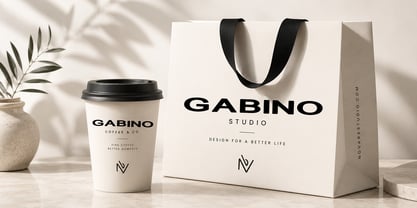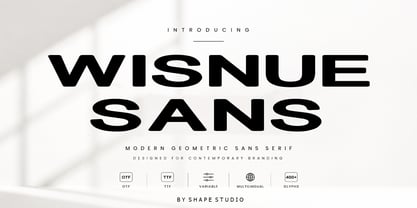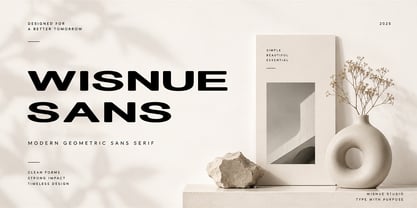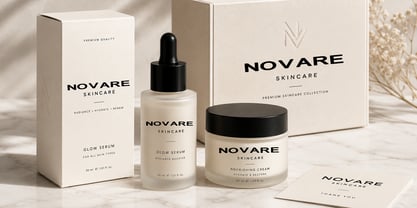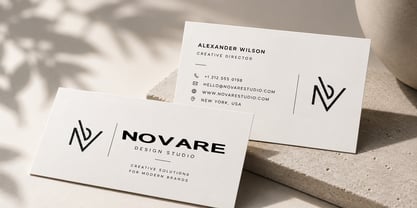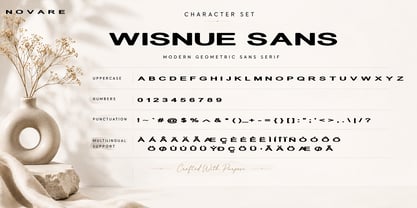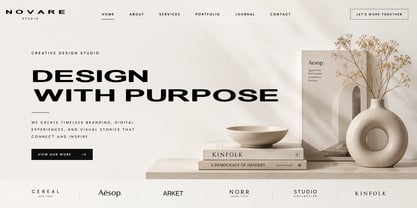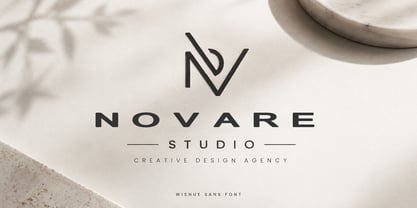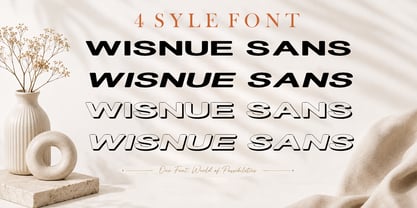
Wisnue Sans
WISNUE SANS is a modern sans serif font with a clean, elegant, and professional appearance. Carefully crafted for designers, businesses, and creative professionals, this versatile typeface is perfect for creating timeless branding and contemporary visual identities.
With balanced letterforms and excellent readability, WISNUE SANS works beautifully for logos, branding, packaging, business cards, websites, social media graphics, posters, magazines, advertising, and editorial designs. Its minimalist style makes it suitable for both luxury and corporate projects.
Whether you're designing fashion brands, skincare packaging, cosmetic labels, premium marketing materials, or modern business presentations, WISNUE SANS delivers a sophisticated and polished look.
• Uppercase & Lowercase
• Numbers & Punctuation
• Multilingual Support
• Clean & Modern Design
• Perfect for Print & Digital Projects
• Logo Design
• Branding Identity
• Luxury Branding
• Fashion Industry
• Skincare Packaging
• Cosmetic Labels
• Business Cards
• Website Headers
• Social Media
• Posters
• Editorial Design
• Marketing Materials
• Corporate Identity
• Packaging Design
• Modern Advertising
Create elegant, professional, and memorable designs with WISNUE SANS—a versatile sans serif font designed for today's creative professionals.